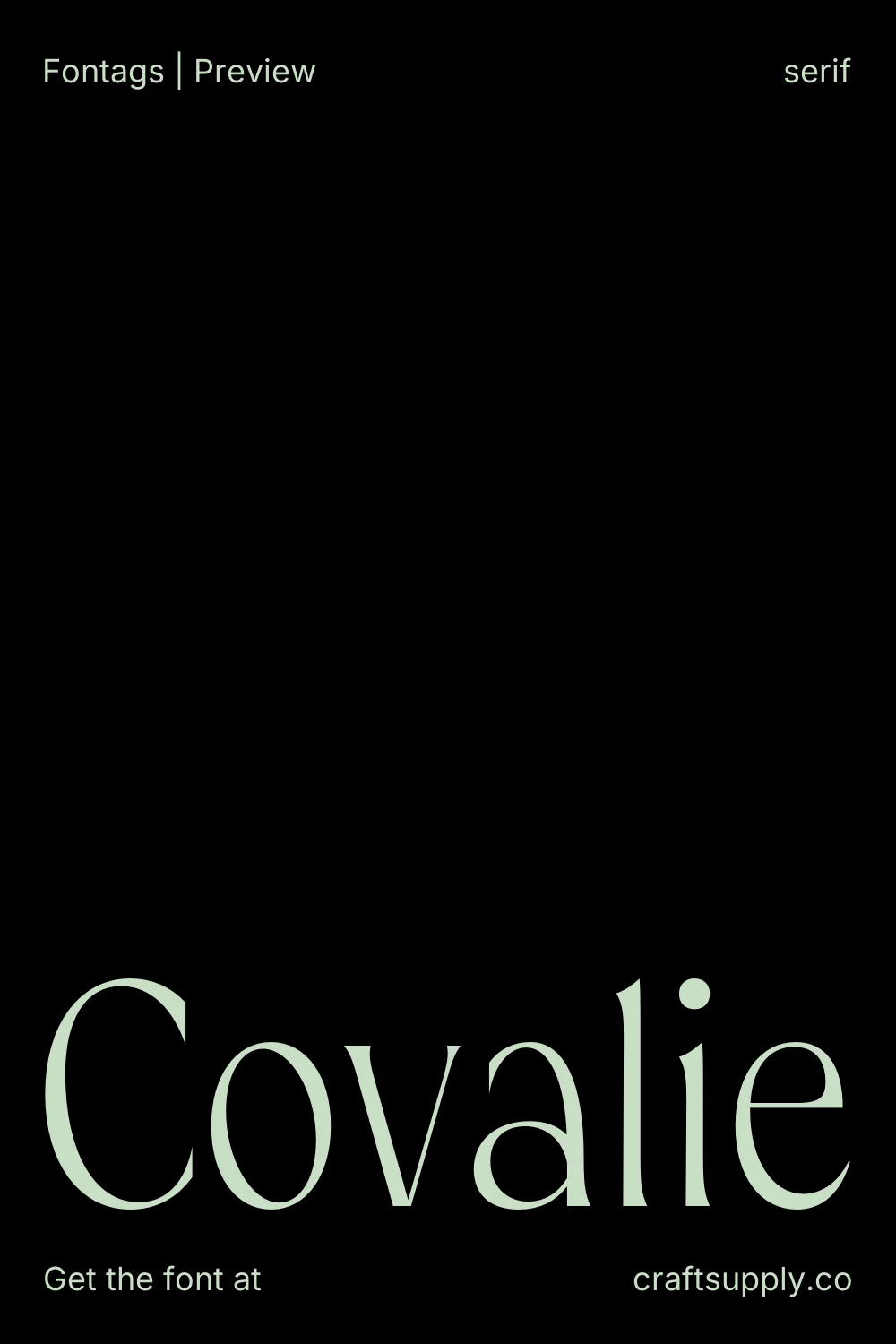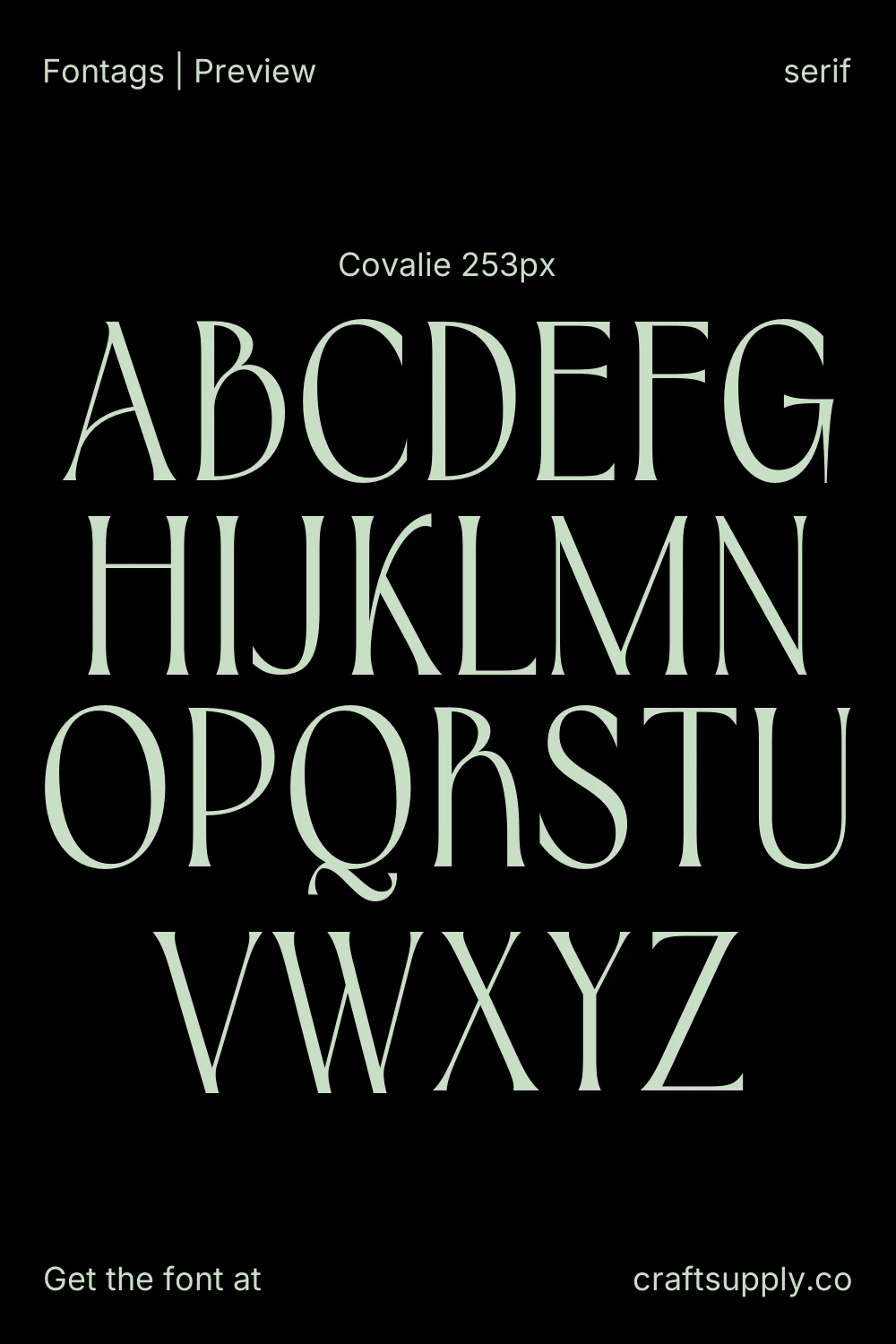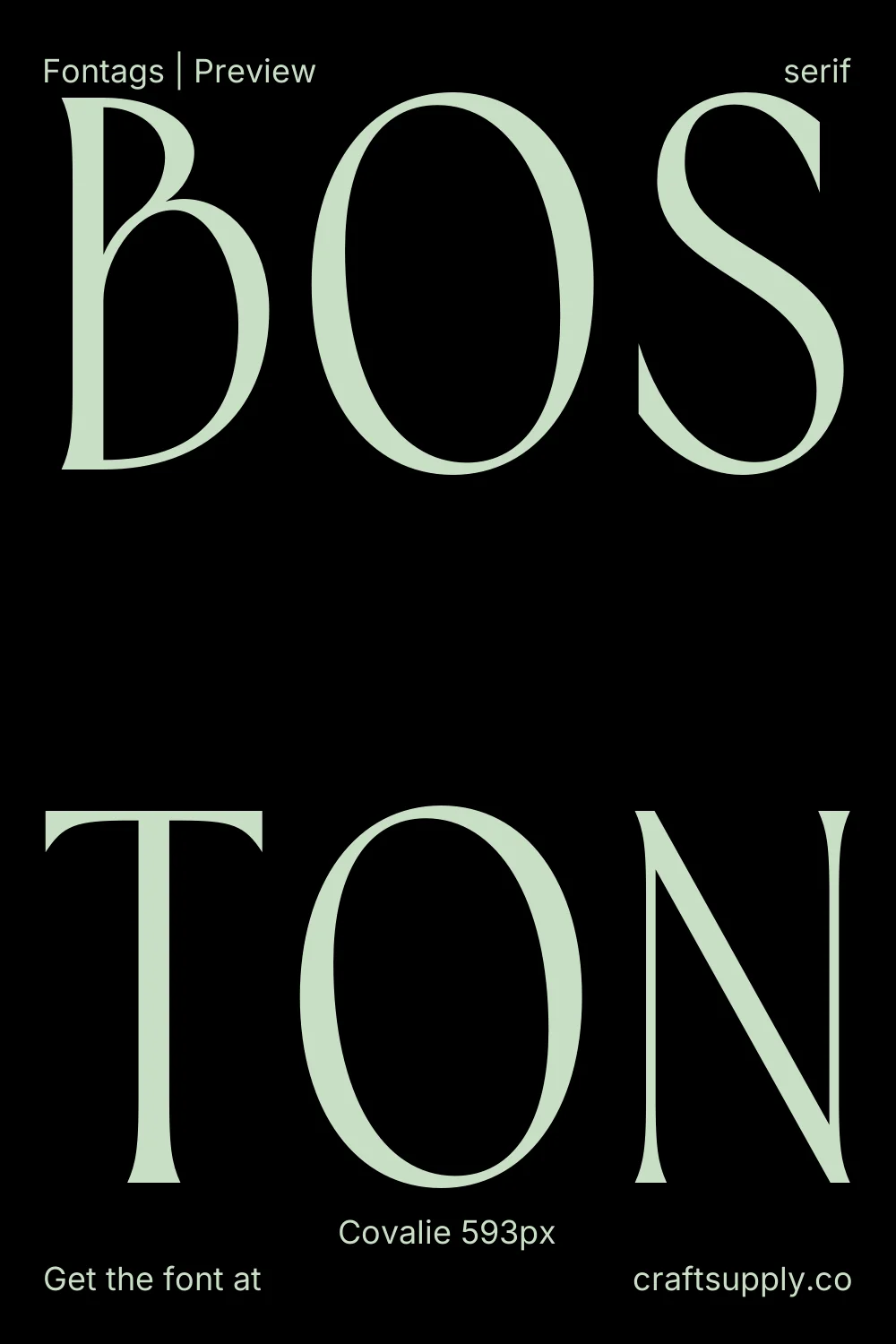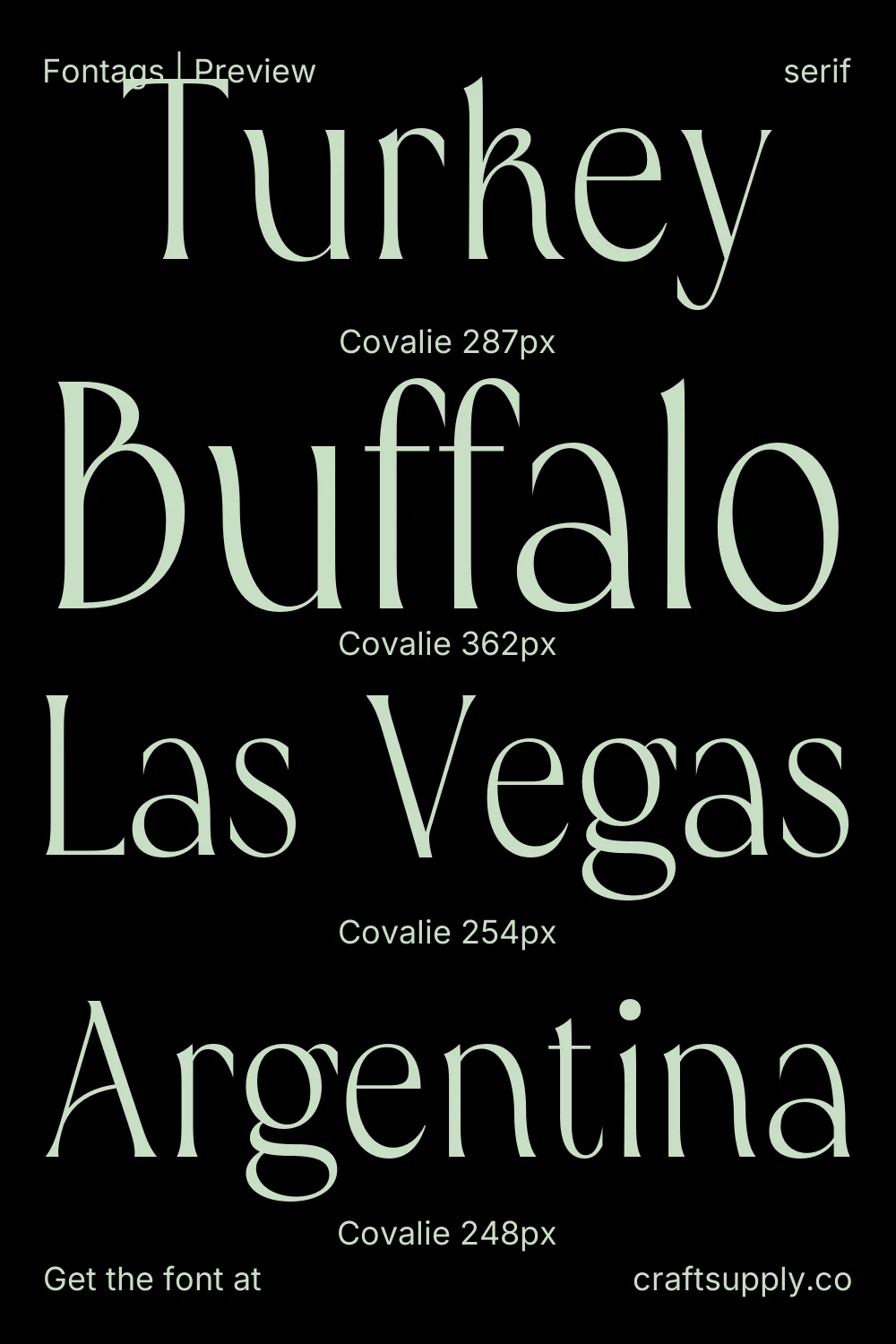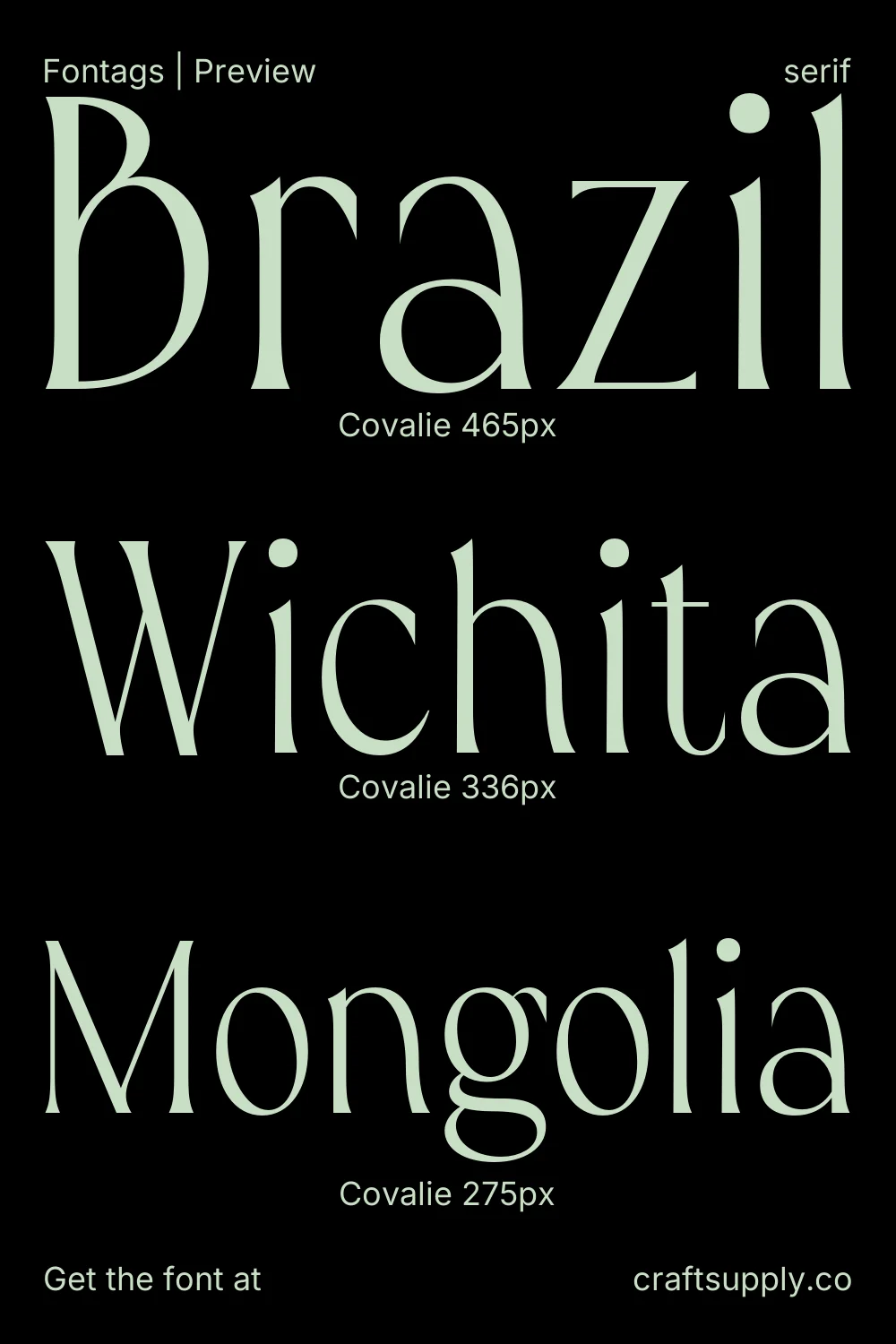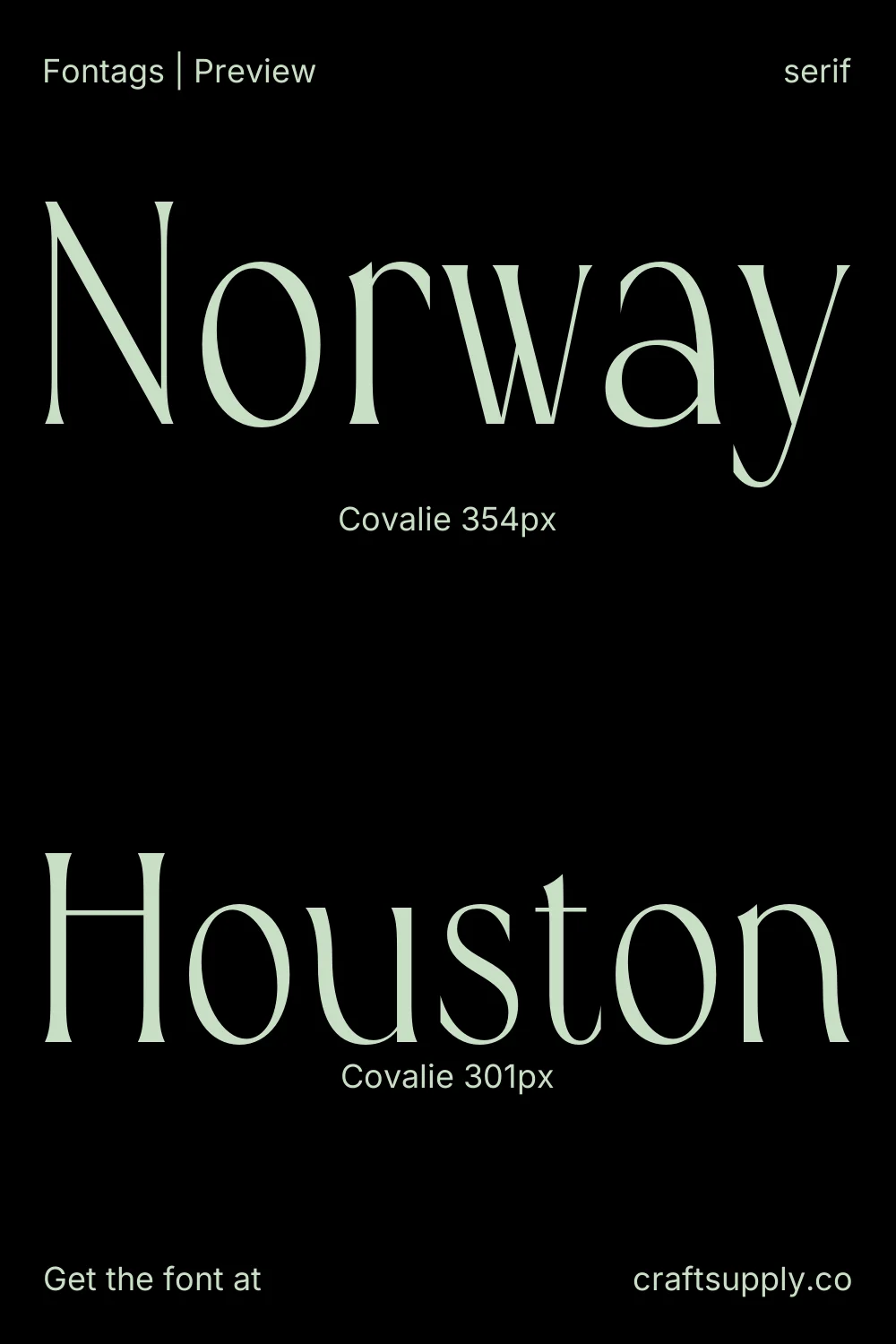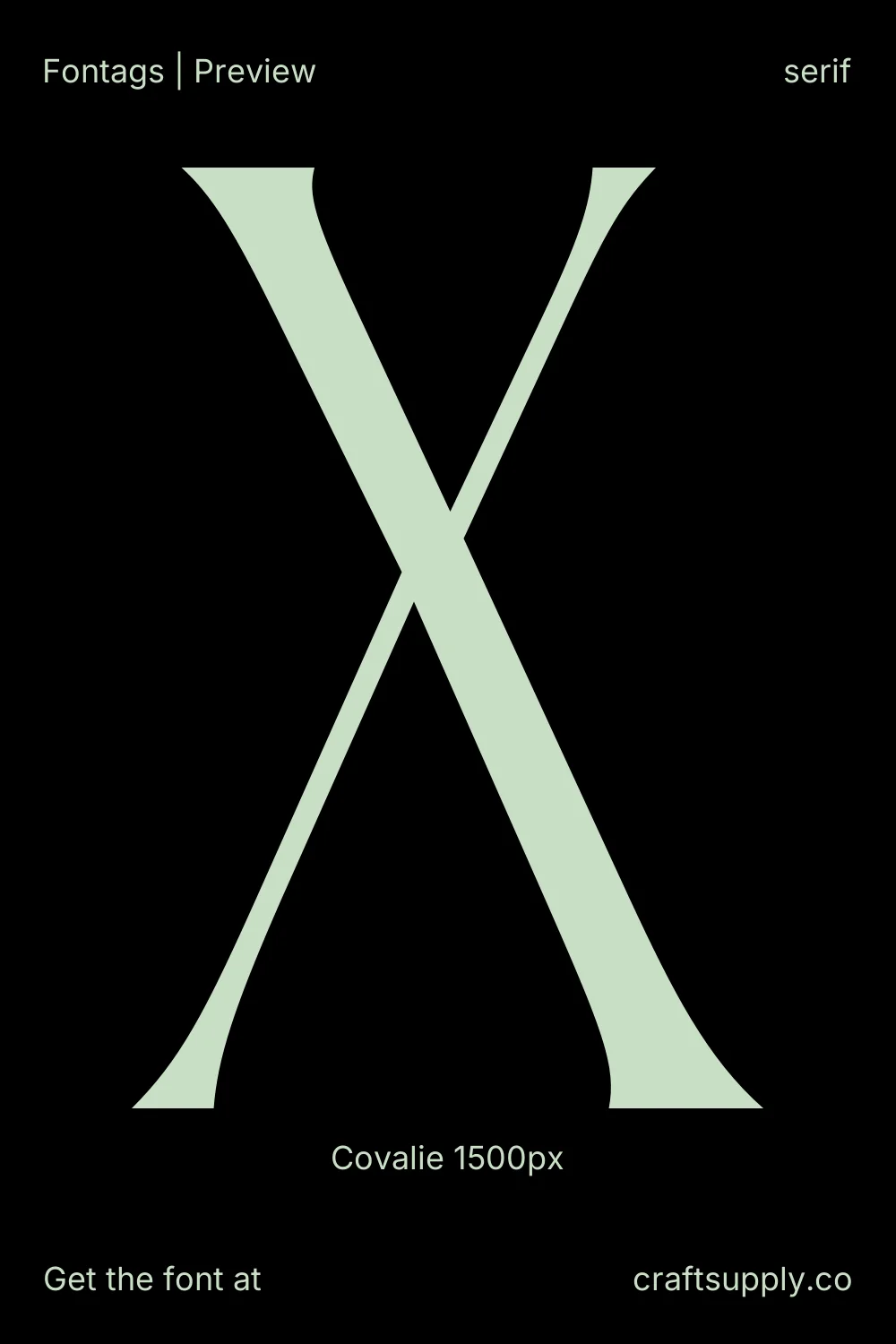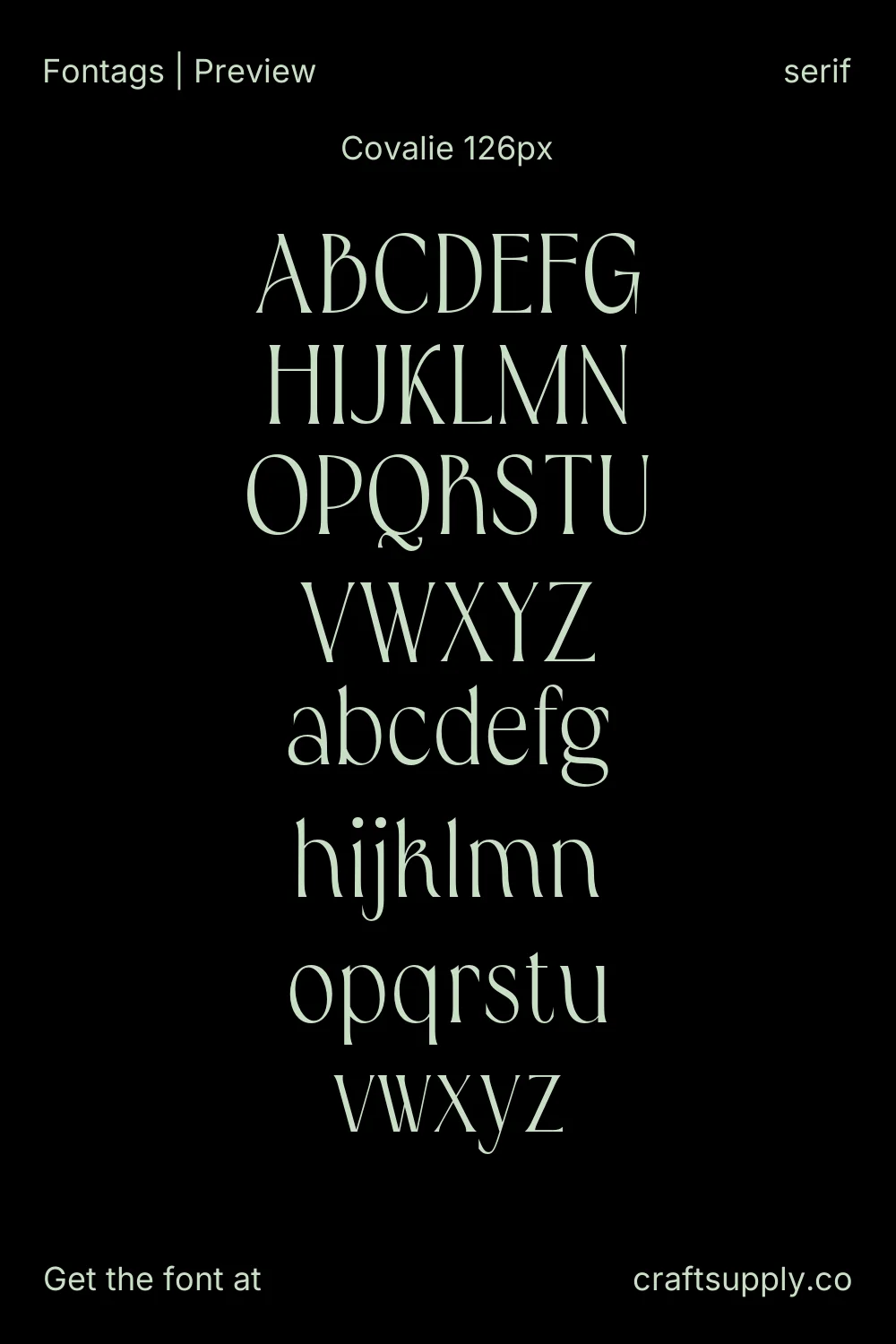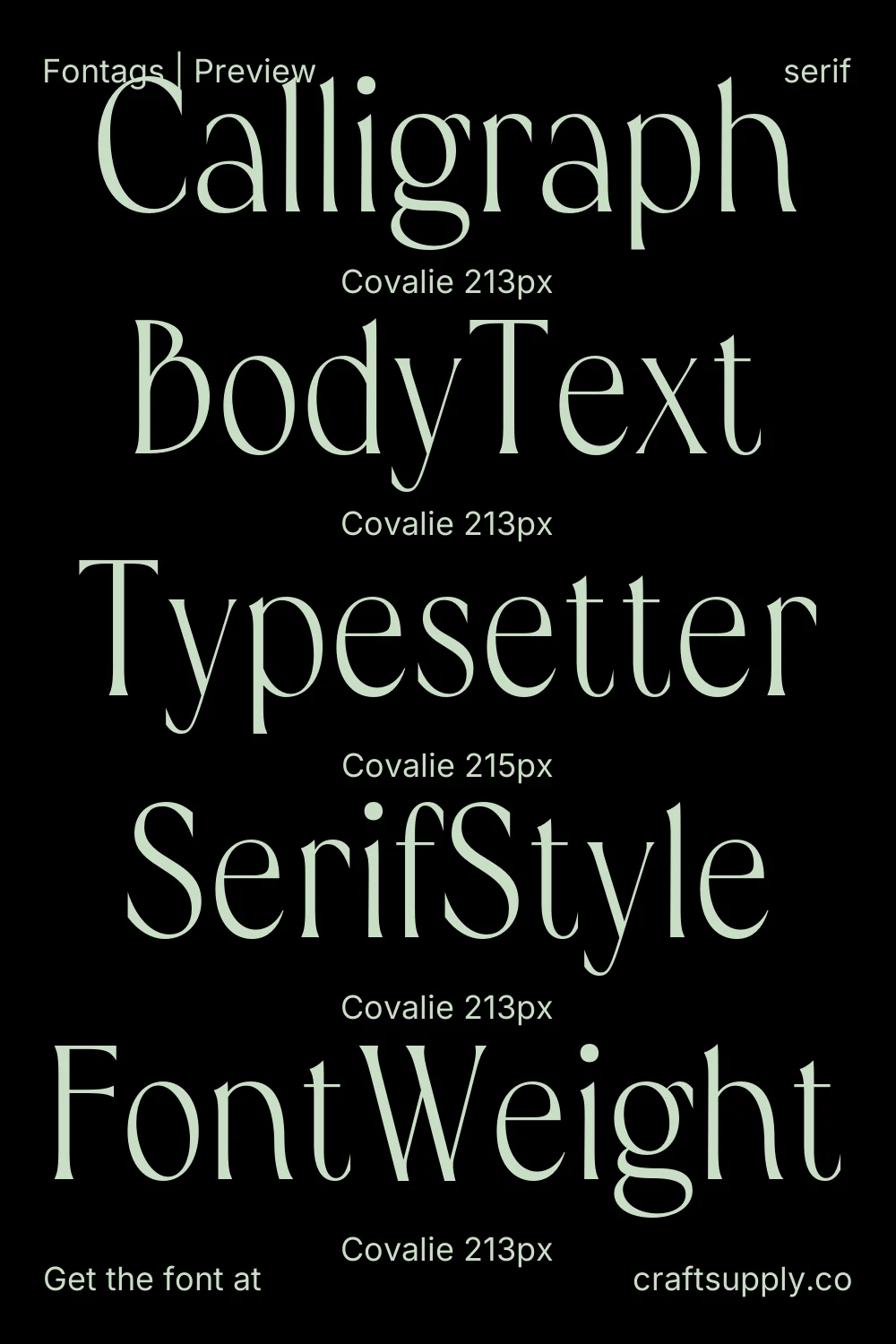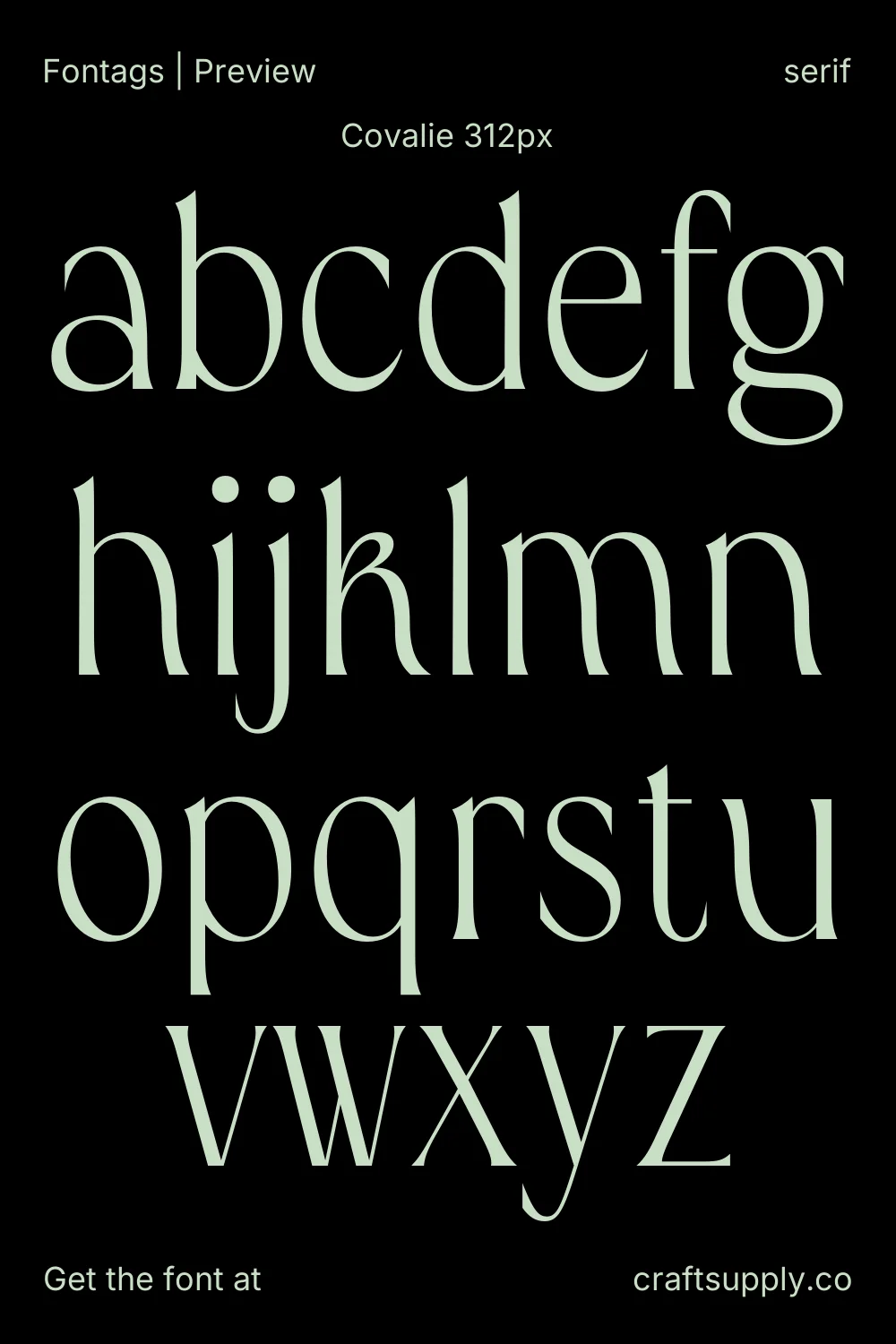
Covalie
Covalie is a graceful serif typeface inspired by floral elegance, featuring moderate contrast and flowing letterforms. Its refined details and subtle curves convey natural beauty, making it suitable for elegant invitations, sophisticated branding, and both print and digital projects.